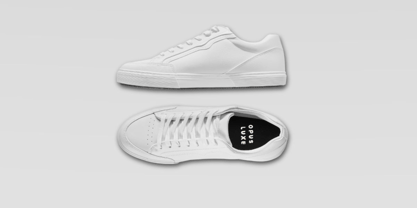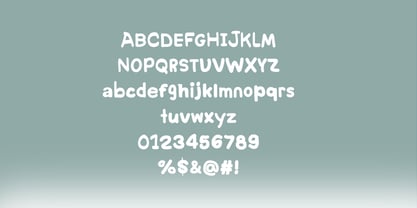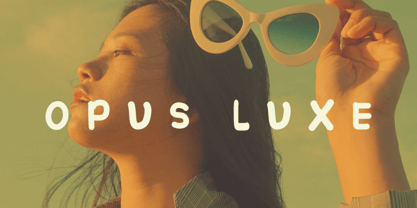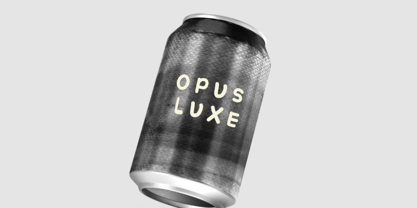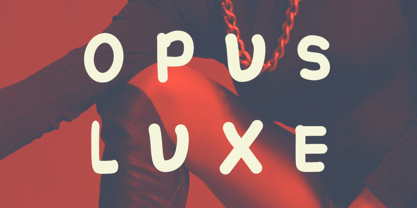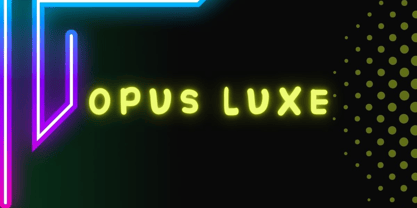
Opus Luxe
by LDN Surface & Co.
The Opus Luxe Font Family was designed by Lesley Nurse and published by LDN Surface & Co.. Opus Luxe contains 1 styles. More about this family
Opus Luxe – A Bold Luxury Serif Typeface for High-End Editorial & Branding
Opus Luxe is a high-impact serif typeface designed for fashion-forward branding, statement headlines, and luxury editorial design. With sleek contrasts and sculptural letterforms, this font brings a modern elegance that elevates visual storytelling.
Its bold silhouette is perfect for luxury fashion campaigns, creative packaging, beauty branding, and designer lookbooks. From print to digital, Opus Luxe makes a powerful impression—refined, confident, and unapologetically stylish.
Highlights:
Uppercase + Lowercase Alphabet
Standard Punctuation & Glyphs
Versatile across print, digital, and packaging
Strong contrast serif with editorial personality
Ideal For:
Fashion Editorial Typography
Designer Brand Launches
Magazine Covers & Features
High-End Packaging & Labels
Beauty & Lifestyle Campaigns
Designers: Lesley Nurse
Current Foundry: LDN Surface & Co.